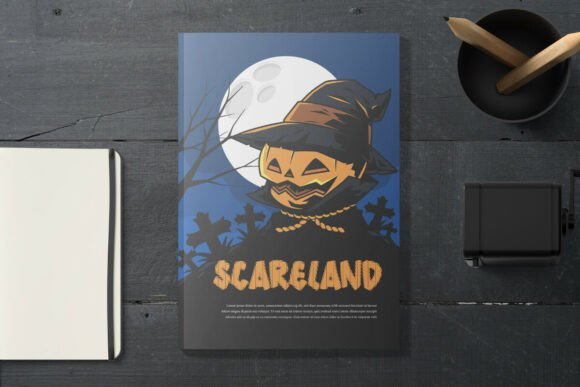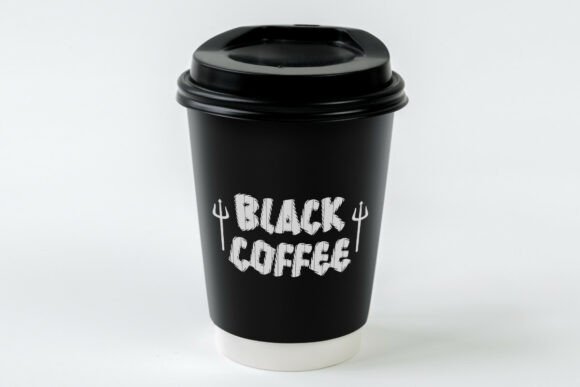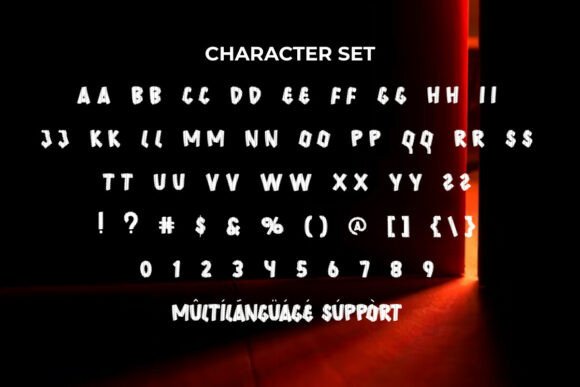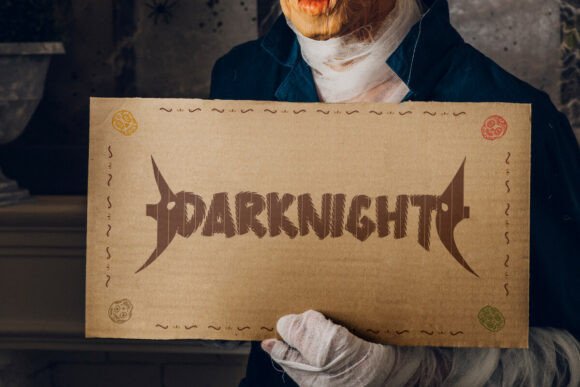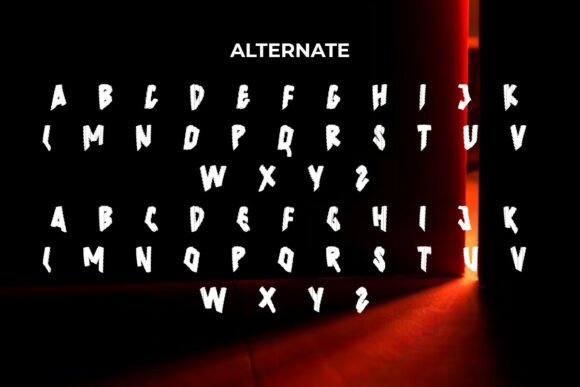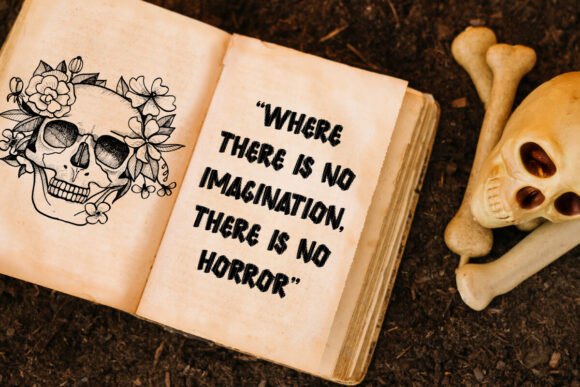
Unleashing the Beast: A Deep Dive into the Blackevil Font
I still remember the design project that led me to discover the Blackevil font. I was working on a branding campaign for a heavy metal band, and I needed a font that could capture the raw energy and aggression of their music. After hours of scouring the internet for the perfect typeface, I stumbled upon Blackevil – a bold and chaotic black metal font that seemed to scream rebellion. In this article, I’ll share my experience with Blackevil, its features, and how to make the most of this powerful font.
First Impressions: What I Love About Blackevil
Here’s what immediately drew me to Blackevil:
- ✨ Bold and attention-grabbing: Blackevil commands attention with its uppercase glyphs that exude a sense of rebellion and raw energy.
- ✅ Highly legible: Despite its wild and chaotic nature, Blackevil remains highly legible, making it perfect for statement branding.
- 🔥 Extreme metal inspiration: The font’s design is inspired by extreme metal logos, fusing jagged spikes, distressed textures, and devilish curves.
- 💻 PUA-encoded for ease of use: Blackevil is PUA-encoded, ensuring effortless access to all glyphs, swashes, and alternate characters.
While Blackevil is an incredible font, there are a few things to keep in mind:
- 🤔 Limited use cases: Due to its bold and chaotic nature, Blackevil might not be suitable for projects that require a more subtle or elegant typeface.
- ⚠️ Overuse can be overwhelming: Using Blackevil excessively can be overwhelming, so it’s essential to balance it with other design elements.
The Story Behind Blackevil
Blackevil was designed with the extreme metal scene in mind. The creator wanted to craft a font that captured the raw energy and aggression of the genre. Inspired by metal logos and devilish imagery, Blackevil was born – a font that’s equal parts bold, chaotic, and rebellious.
| What is Blackevil font best used for? | Blackevil is perfect for bold statements, extreme metal branding, tattoo shops, horror merch, and underground posters. |
| Is Blackevil font legible? | Yes, despite its chaotic nature, Blackevil remains highly legible. |
| Does Blackevil support OpenType features? | Yes, Blackevil is PUA-encoded and supports OpenType features, including glyphs, swashes, and alternate characters. |